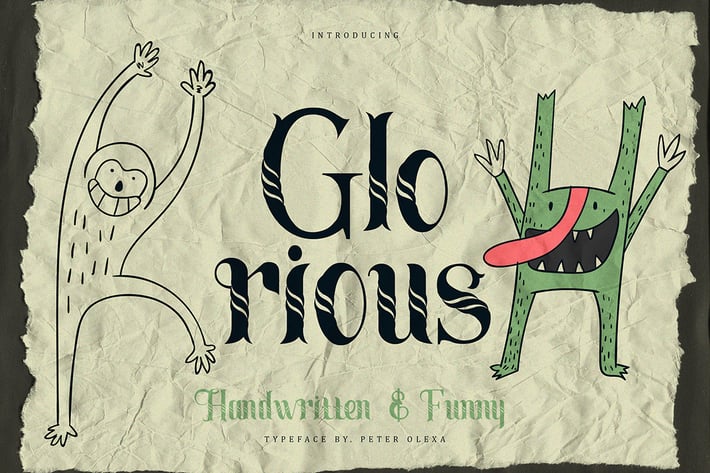
Glorious Funny & Artistic Font
Vintage, decorative, handwritten, funny & playful serif font. Great for your new header, logo or branding project.
- Great for retro or vintage style branding projects